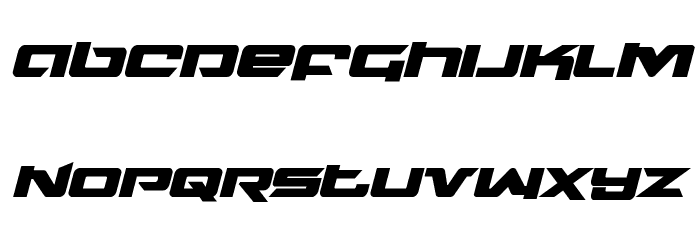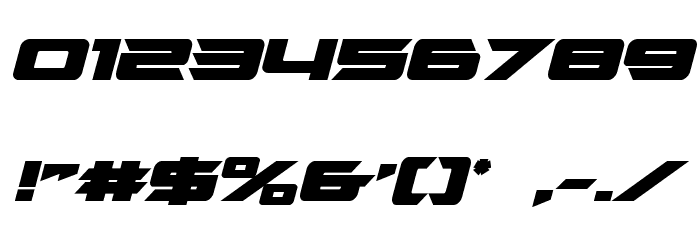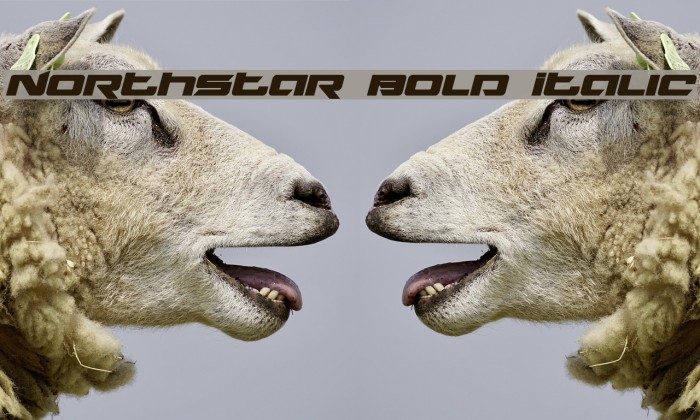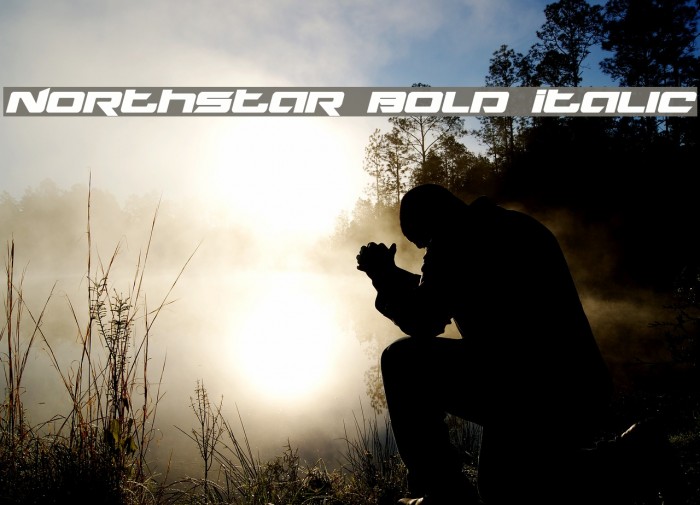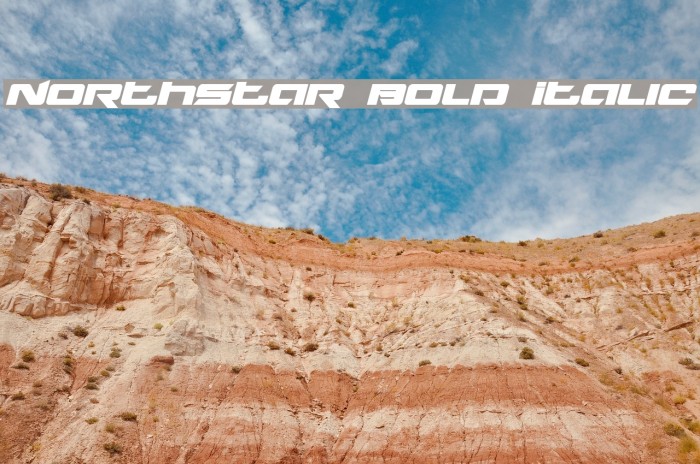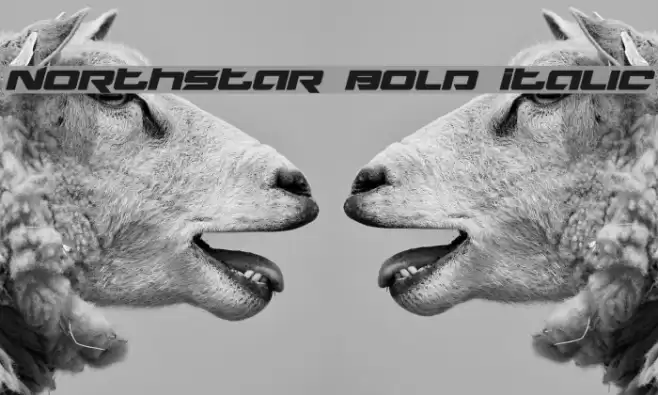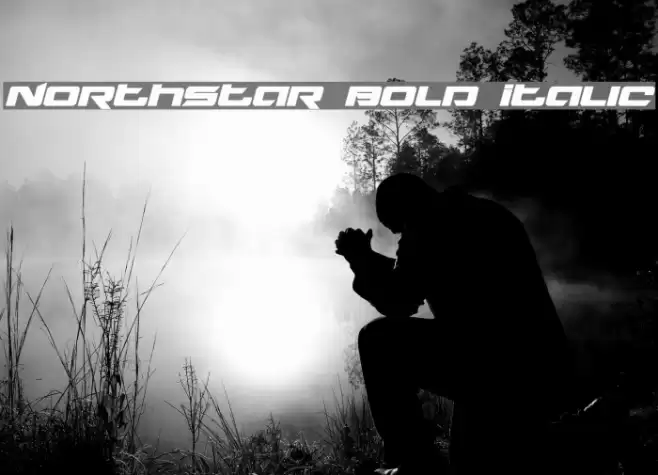
Northstar Bold Italic Font
This font features a bold and italicized style with a futuristic and dynamic appearance. The characters are angular and slightly slanted, giving a sense of motion and speed. The uppercase and lowercase letters maintain a consistent geometric design, with sharp edges and a uniform stroke width. The numbers and special characters follow the same aesthetic, ensuring a cohesive look across all glyphs. This font is ideal for projects that require a modern and edgy feel, such as technology branding, sports team logos, or sci-fi themed designs.
A bold, italicized font with a futuristic and dynamic design.
- Proposed Projects: Ideal for technology branding, sports logos, and sci-fi themed designs.
- Use Case: Logos, Headlines